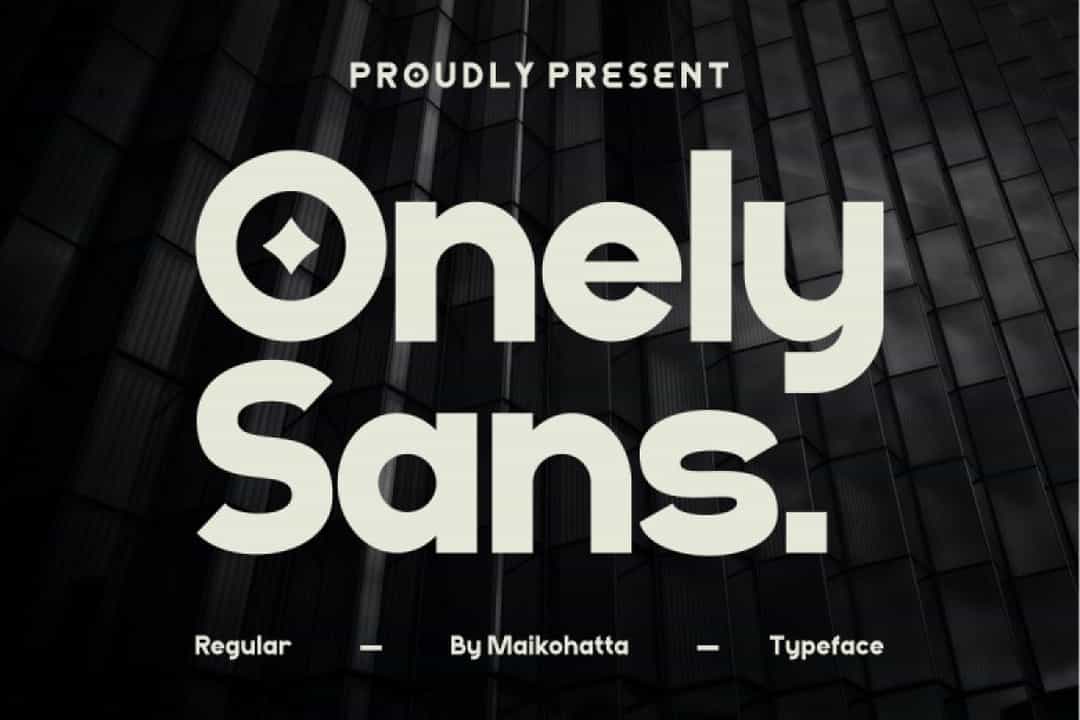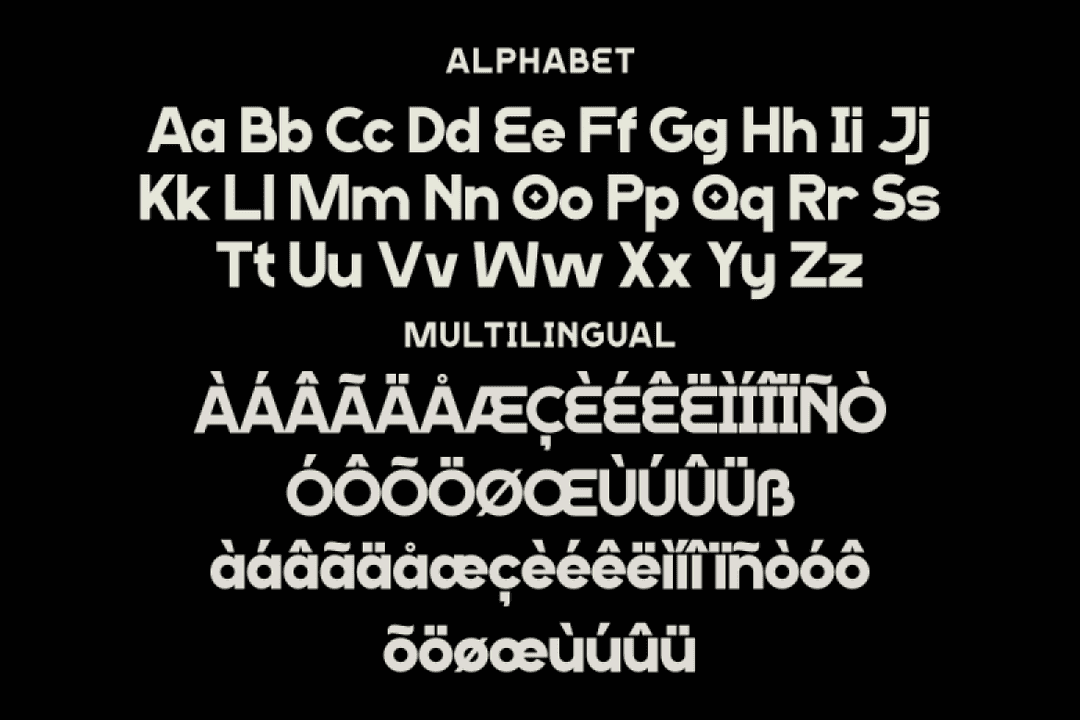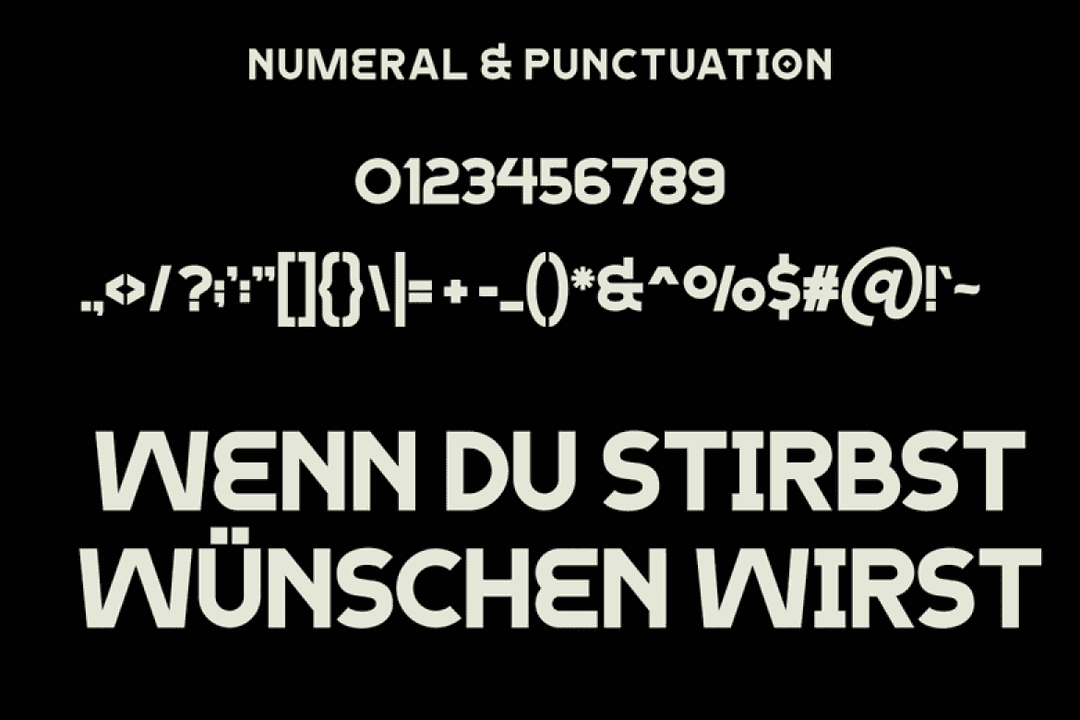
Onely Sans is a modern, bold realist display sans font that’s ideal for branding projects such as logo design, template design or esport. Perfect in many different environments.